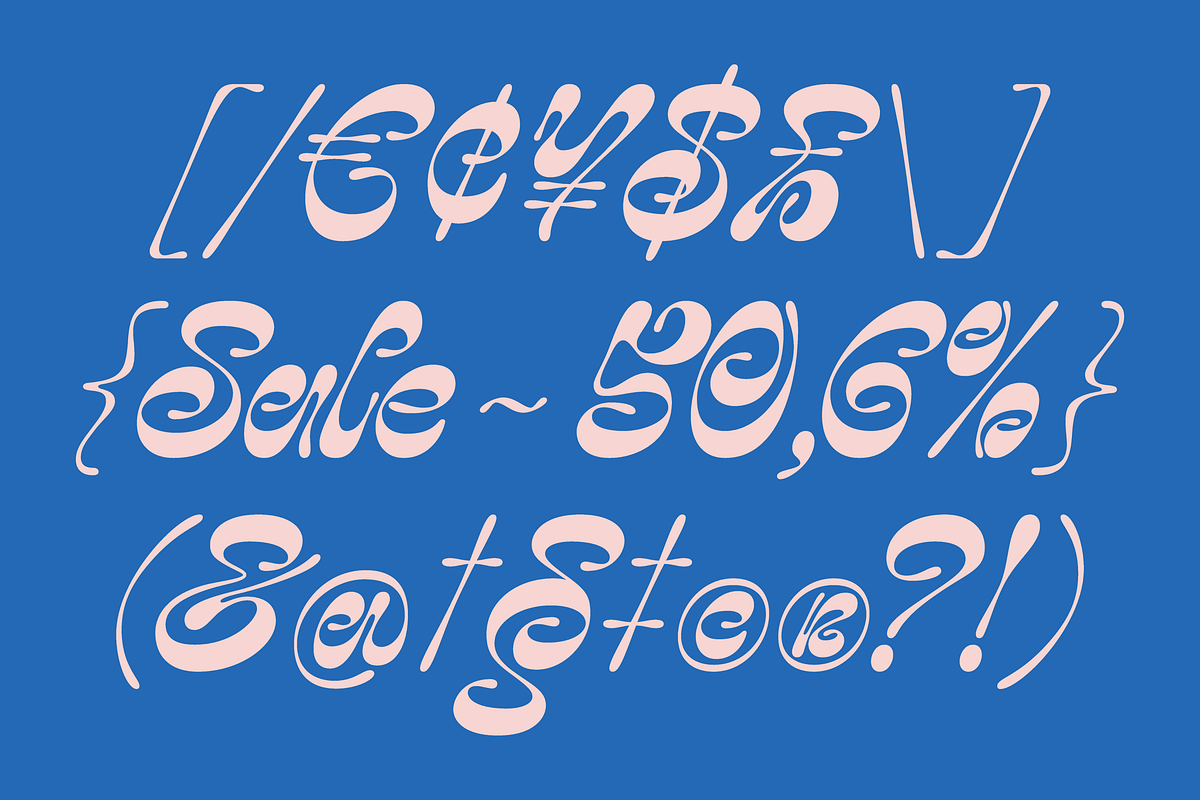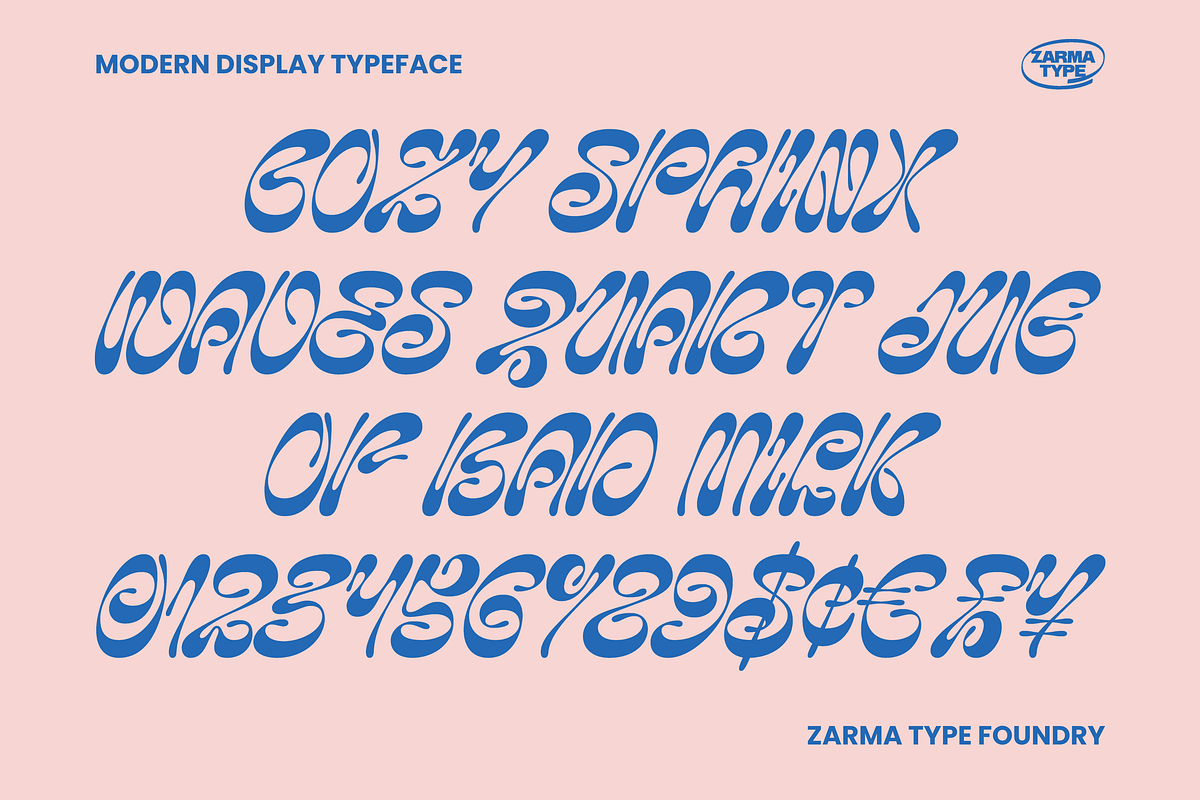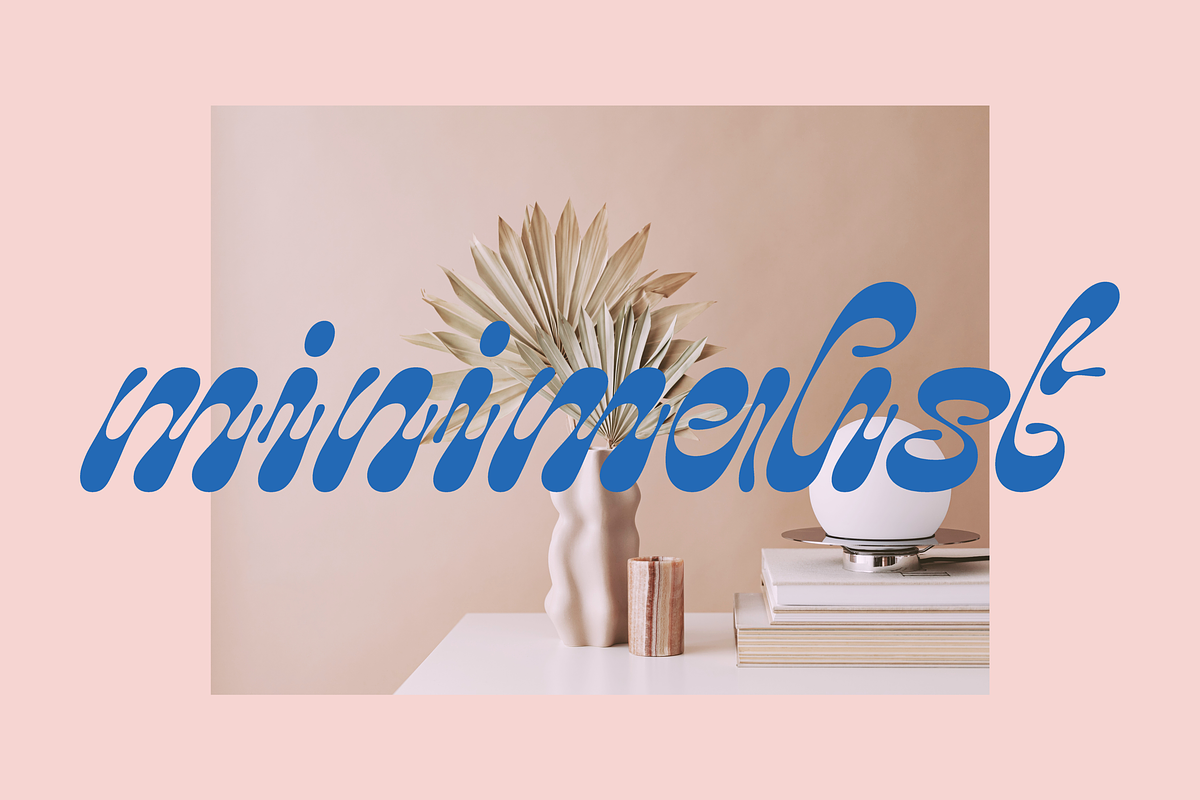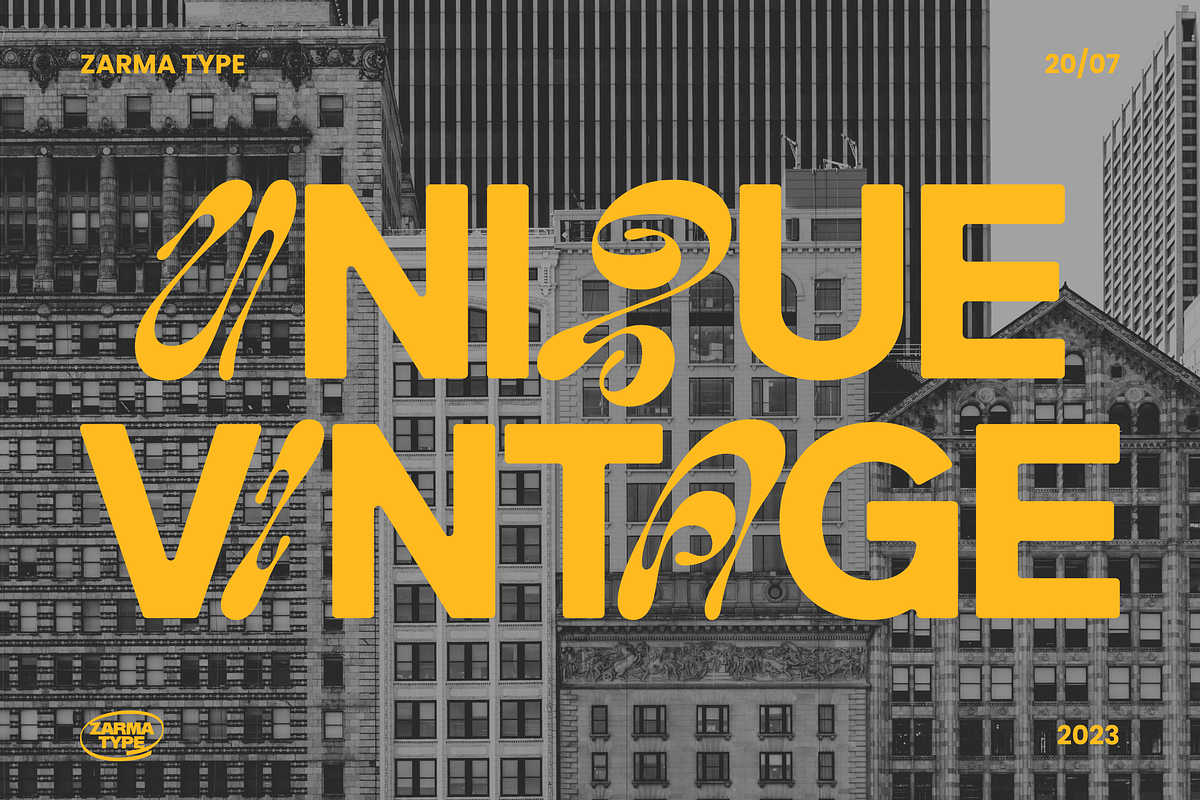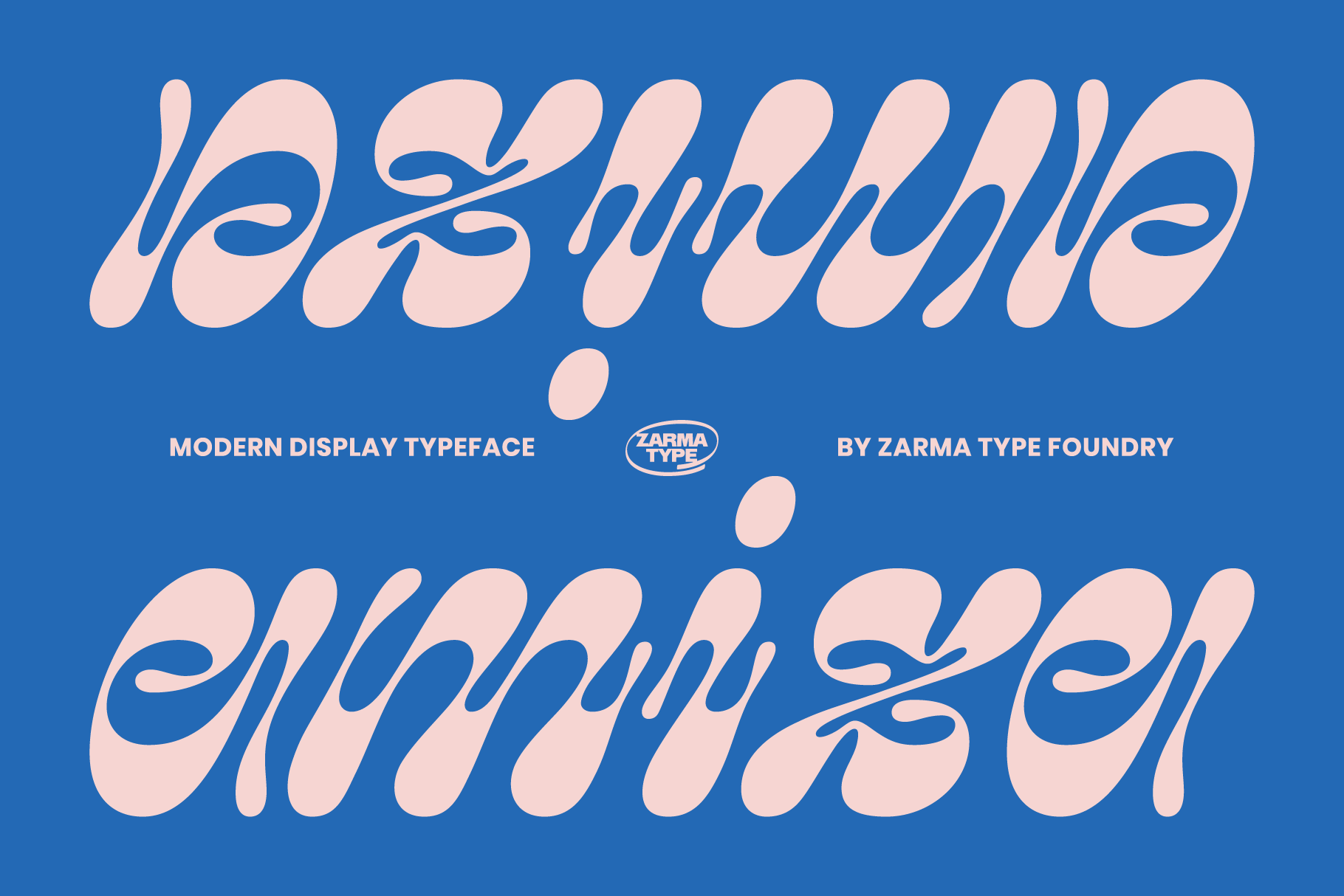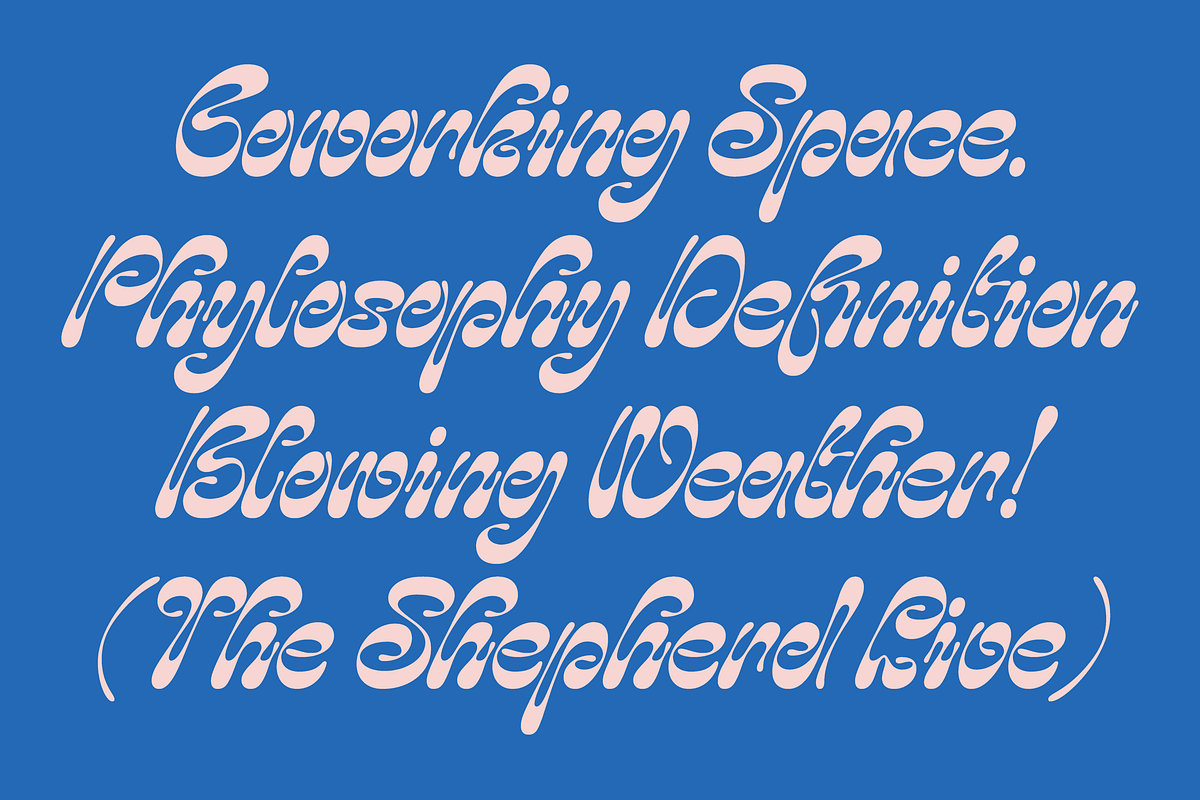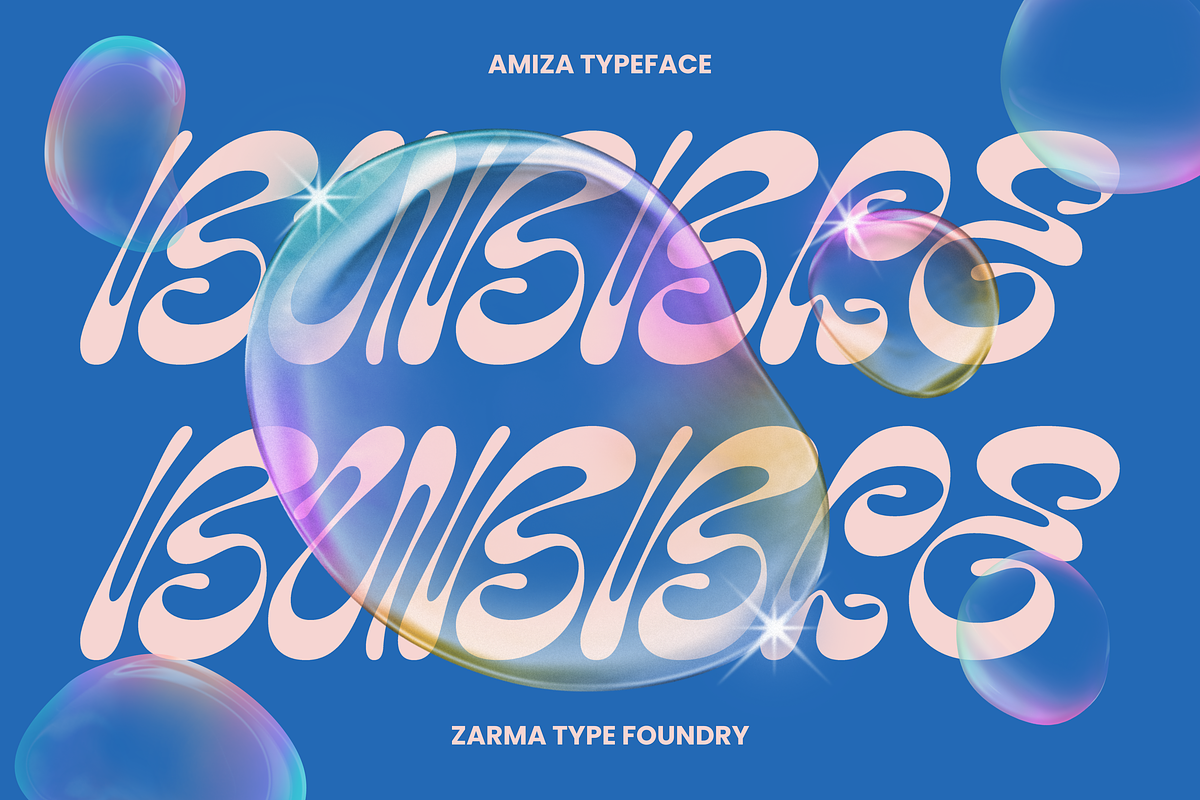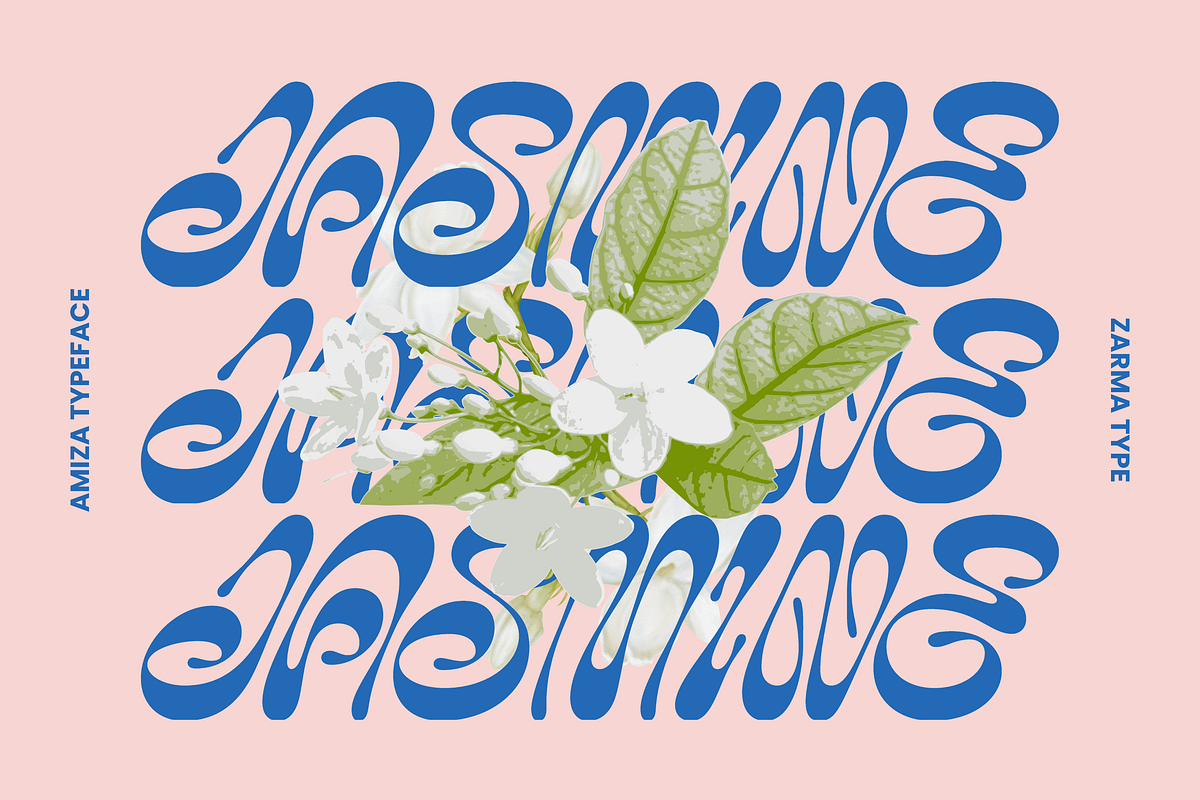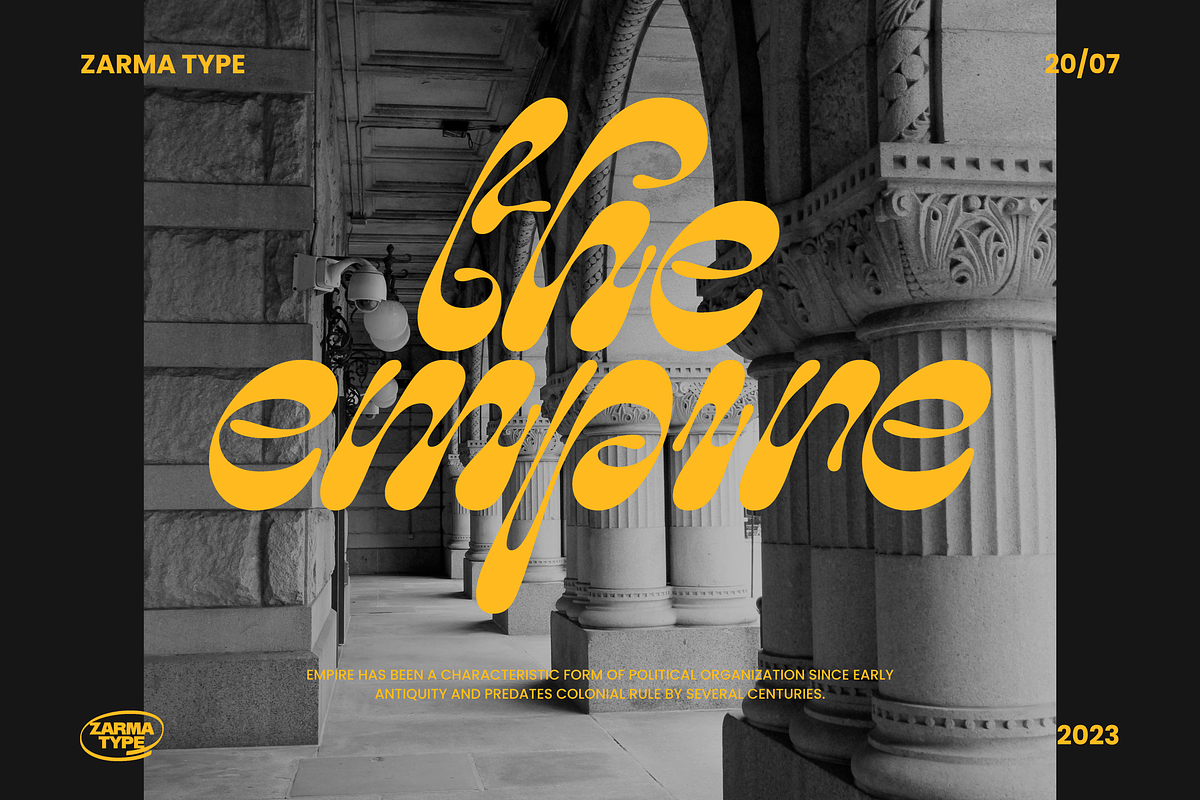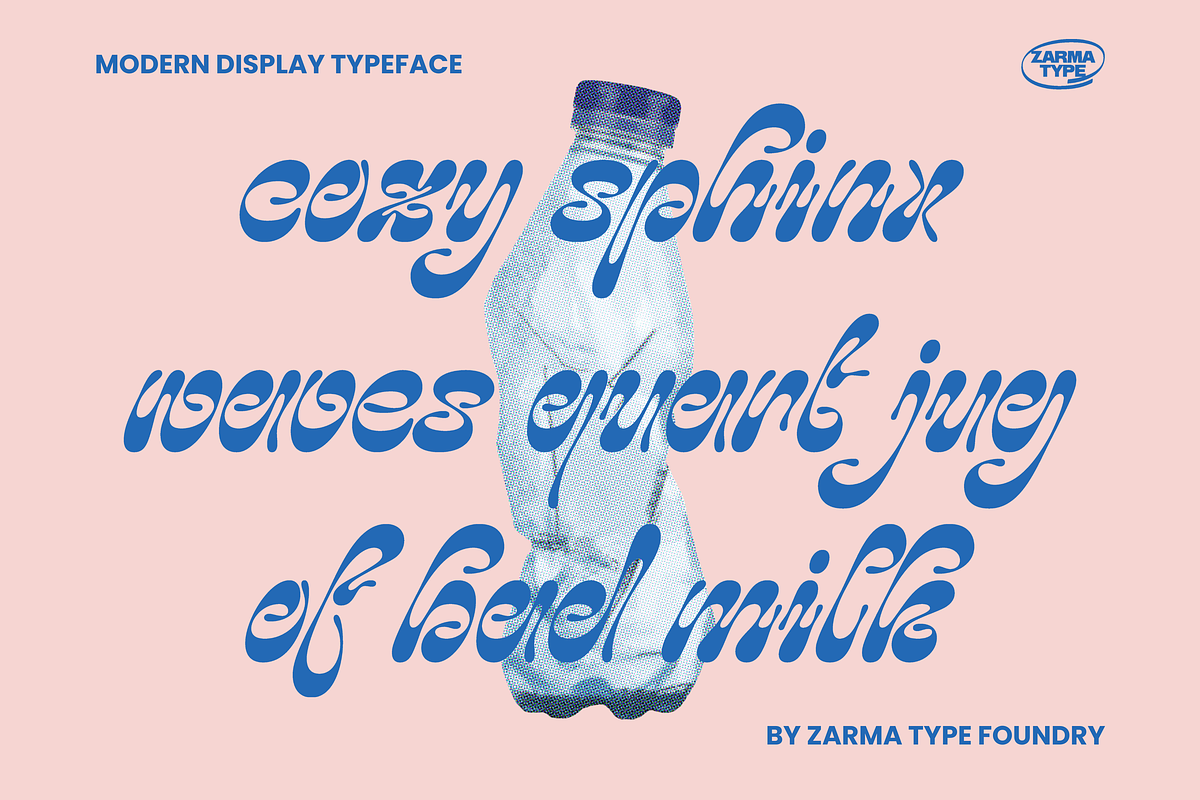
Amiza - Psychedelic Font
Psychedelic Font Amiza, a captivating and versatile font inspired by psychedelic and experimental typefaces. With its mesmerizing curves and intricate details, Amiza effortlessly combines elegance and audacity, making it the perfect choice for creating visually stunning compositions. Whether used for branding, editorial design, or eye-catching headlines, Amiza demands attention and leaves a lasting impression. Elevate your designs with the enigmatic allure of psychedelic font Amiza and stand out in today's competitive design landscape.